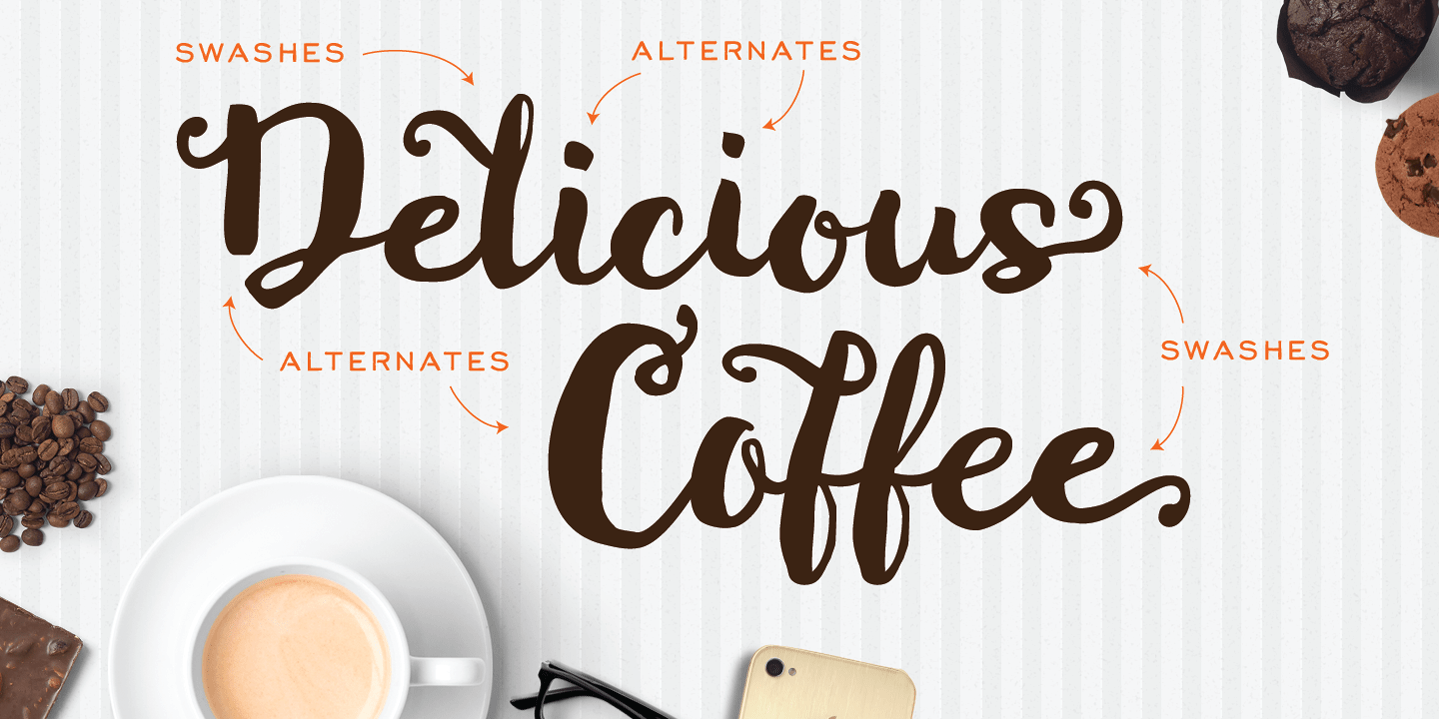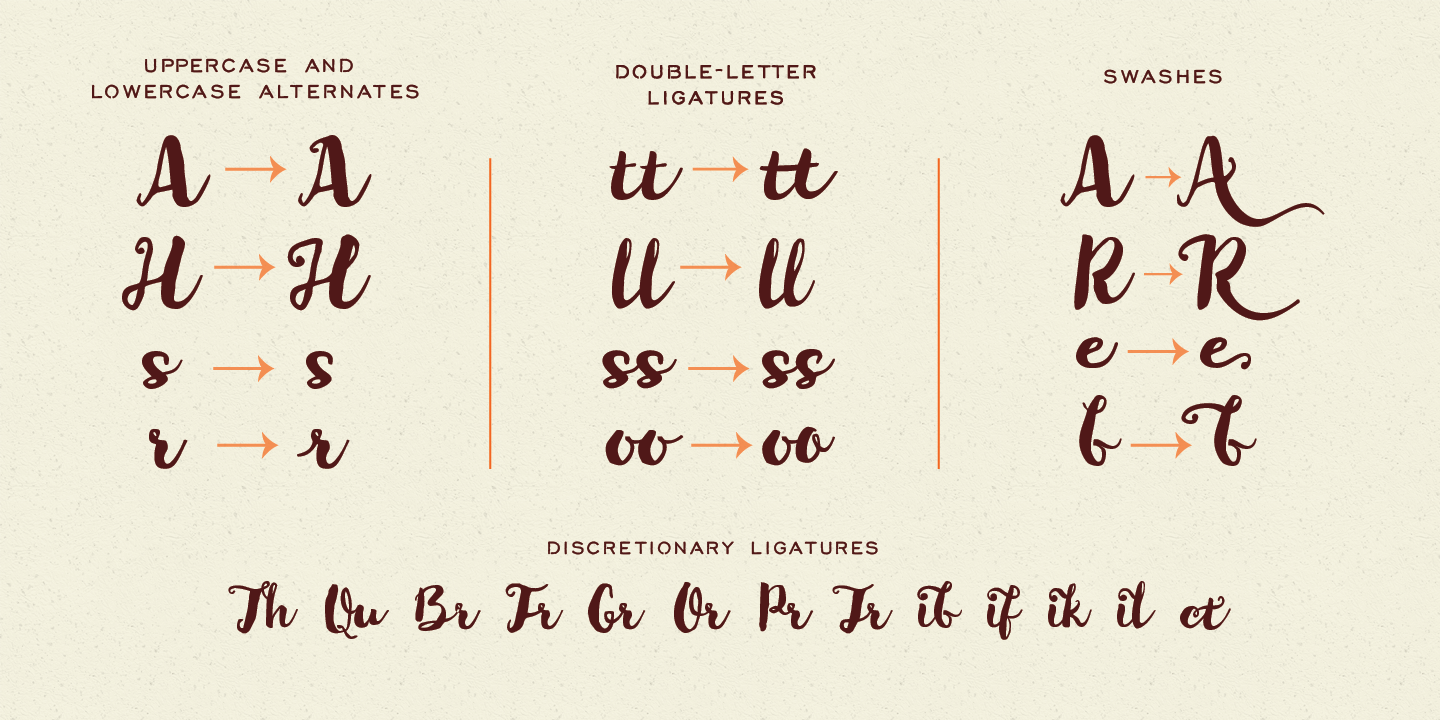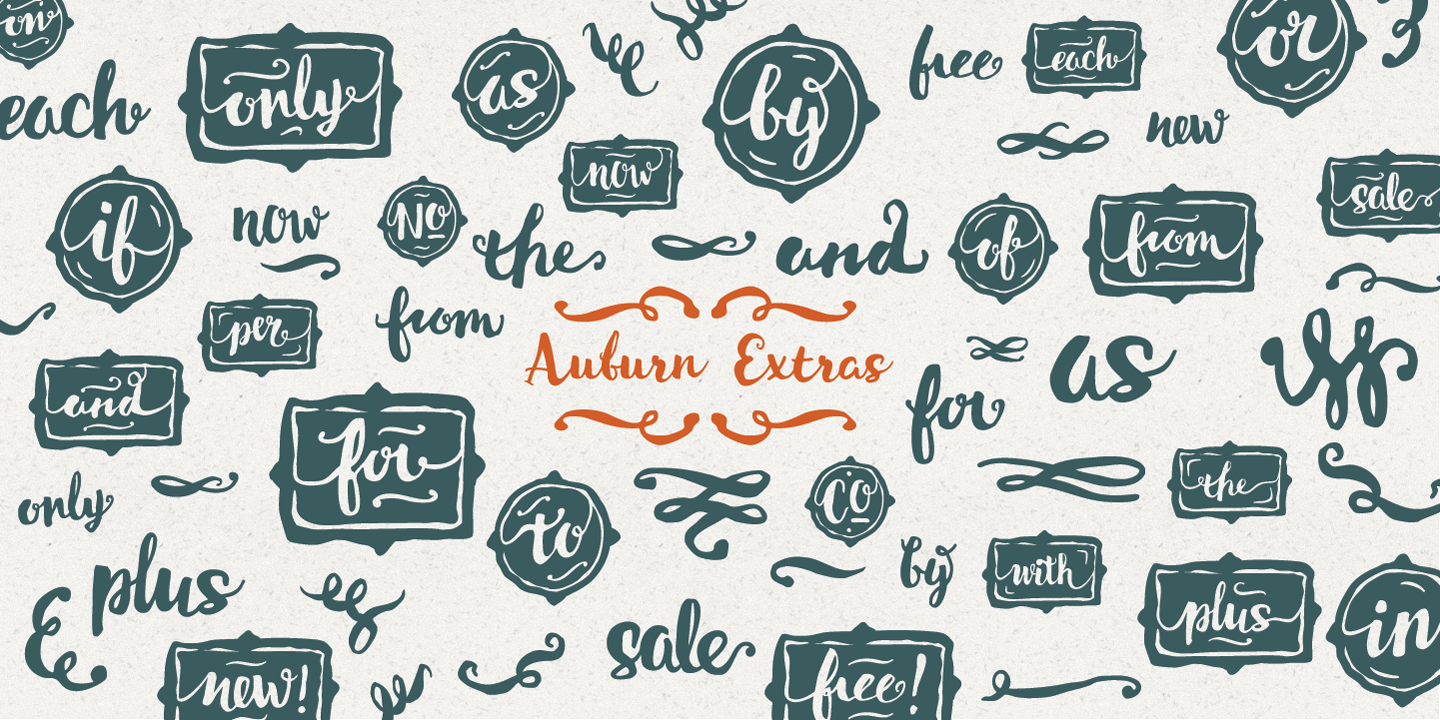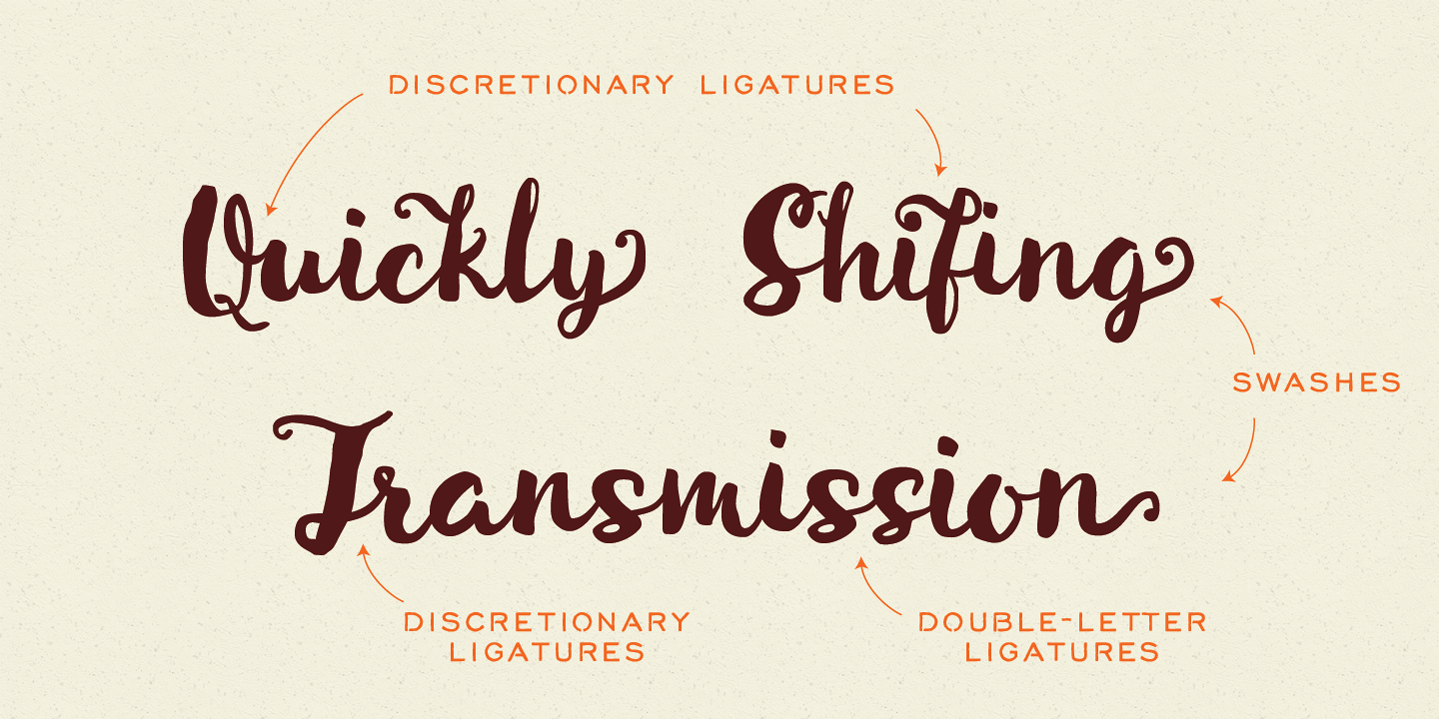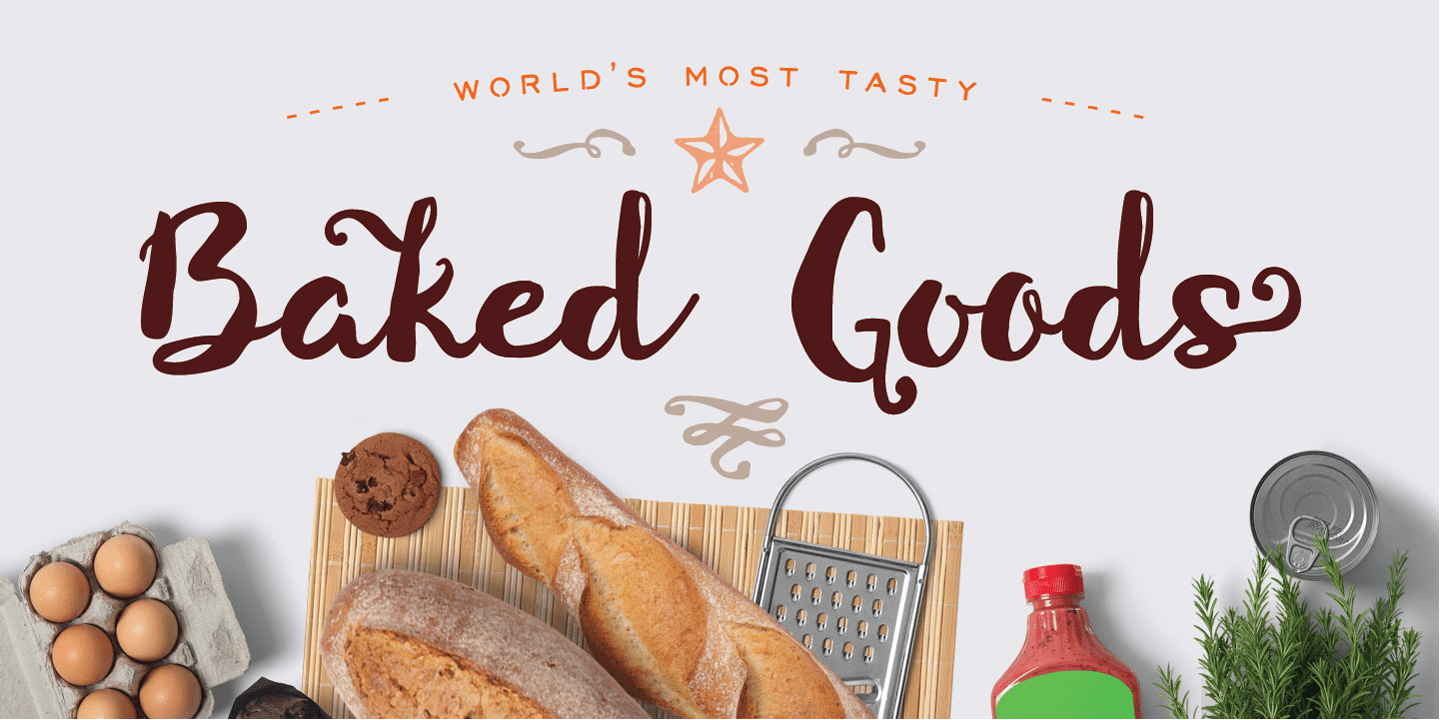
Auburn
Auburn is a bold, hand-drawn brush script packed with OpenType features and accompanied by a handy set of extra, including catchwords and flourishes. Auburn was created by hand with Japanese brush pens for an authentic and organic script feel. With plenty of alternates and stylistic sets, Auburn is a full-featured script that can be used in a variety of design applications. A little beefier than a normal script, Auburn is great for packaging and titling, but is useful for a wide variety of occasions including weddings, birthdays, logos and restaurant menus, to name a few.
OpenType features include Stylistic Alternates, 2 additional Stylistic Sets, Swashes, Discretionary Ligatures, Standard Ligatures, and Contextual Ligatures.